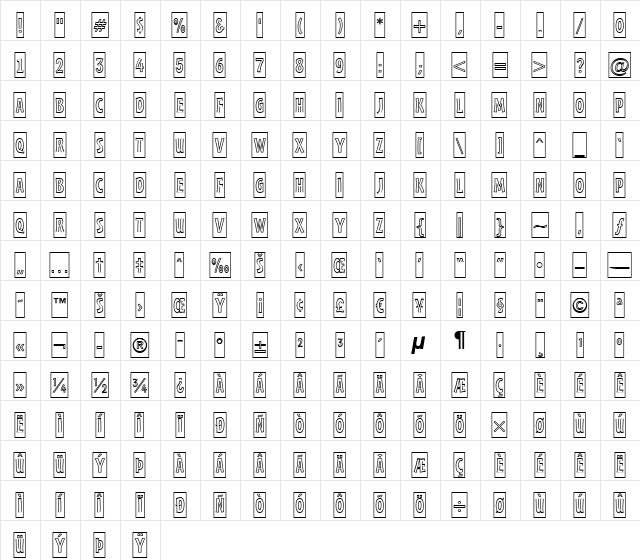
a_FrudgerCmOtl Regular
| Designer | W.Chufarofsky & M.Slutsker |
Design Context for a_FrudgerCmOtl Typeface
a_FrudgerCmOtl is a composed and adaptable typeface that performs quietly and consistently across a wide range of design contexts.